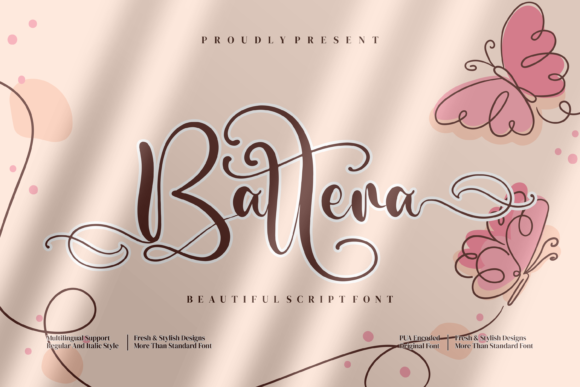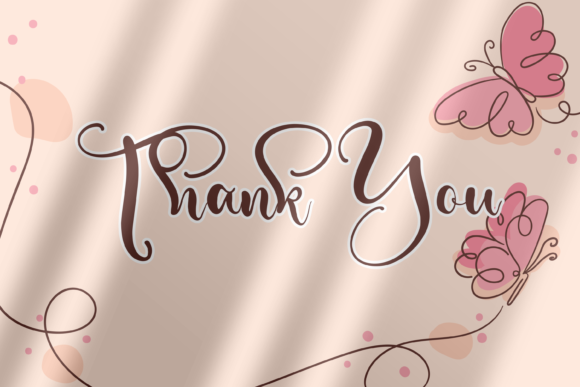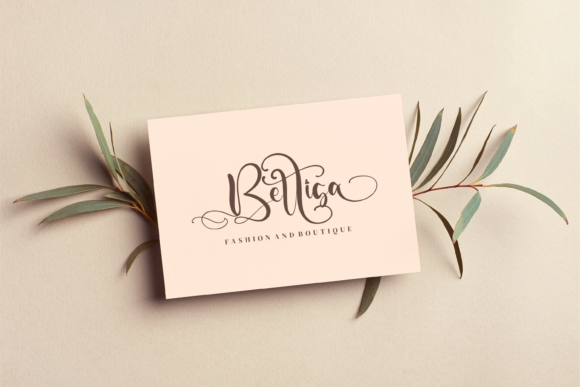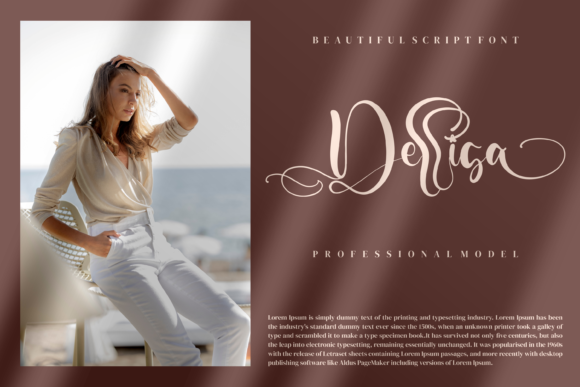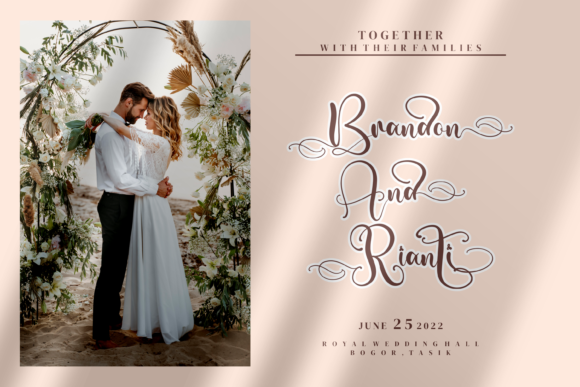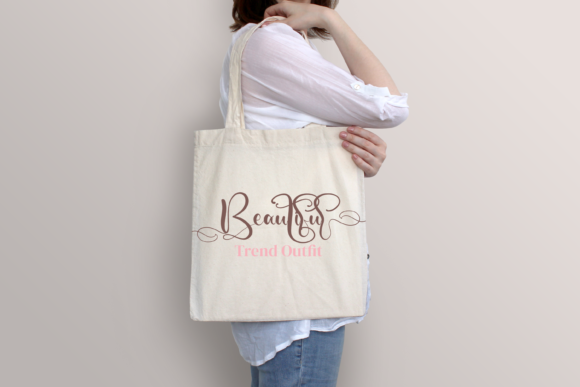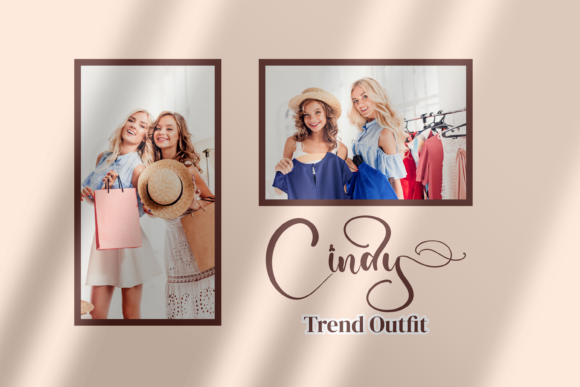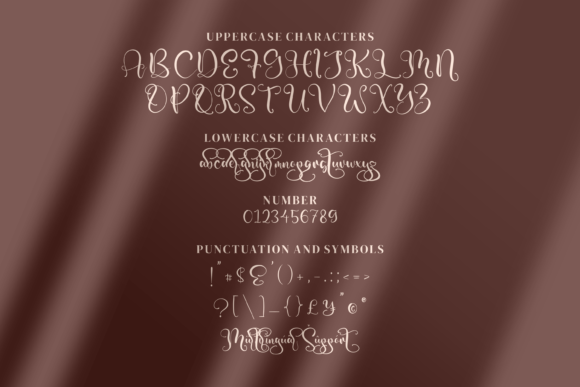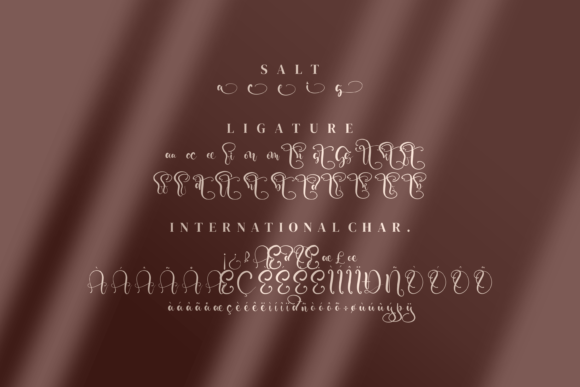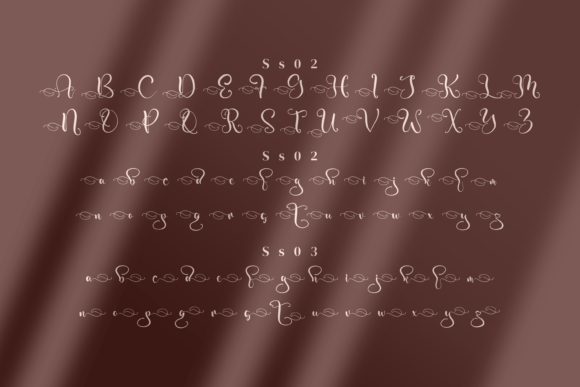
Battera Font
Battera is a charming and elegant font that adds a touch of sophistication to any design. Its graceful and flowing letterforms make it particularly well-suited for wedding invitations, thank you cards, quotes, greeting cards, logos, business cards, and other projects that require a personalized touch.
The beauty of Battera lies in its versatility. It can effortlessly adapt to various design styles, from romantic and whimsical to modern and sophisticated. Its charming appearance brings a sense of elegance and refinement to your creations, making them visually appealing and memorable.
One of the advantages of Battera being PUA encoded is that it allows you to access all of the glyphs and swashes with ease. This means you have more design options and can add decorative elements and flourishes to enhance your text. Whether you want to incorporate stylish alternates or elegant swashes, Battera provides you with the flexibility to customize your designs and make them truly unique.
The delightful combination of charm and elegance in Battera ensures that your designs stand out and make a lasting impression. Its refined and well-balanced letterforms create a harmonious flow, captivating the viewer’s attention. Whether you’re creating a romantic wedding invitation or a professional logo, Battera adds a touch of sophistication that elevates your design to the next level.
In summary, Battera is a charming and elegant font that brings a customized touch to a wide range of designs. Its PUA encoding allows you to access all of the glyphs and swashes effortlessly, giving you the freedom to customize your text with decorative elements. Let Battera enchant your wedding invitations, thank you cards, quotes, greeting cards, logos, business cards, and other designs with its captivating charm and timeless elegance.